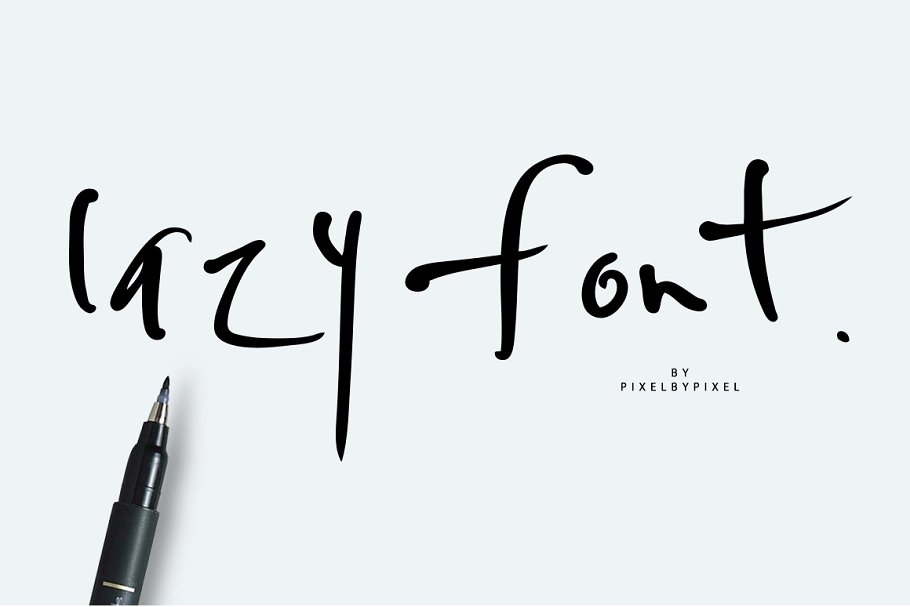
Introducing Handwritten Lazy Font, the perfect choice for all your tattoo-inspired designs! Created by pixel colours, this sans serif font is sure to captivate and inspire you. Get ready to elevate your designs with its unique and eye-catching style.
Feeling lazy? Don't worry, this font was designed with lazy vibes in mind! With its free-flowing style and strokes that resemble fresh ink, Handwritten Lazy Font adds a touch of effortless cool to any project. Whether you're creating a tattoo design, a logo, or adding a personal touch to your website, this font will make your work pop!
What sets Handwritten Lazy Font apart is its versatility. It features both uppercase and lowercase characters, numerals, and punctuation, giving you complete creative freedom. Plus, it supports multiple languages, so you can reach a wider audience with your designs.